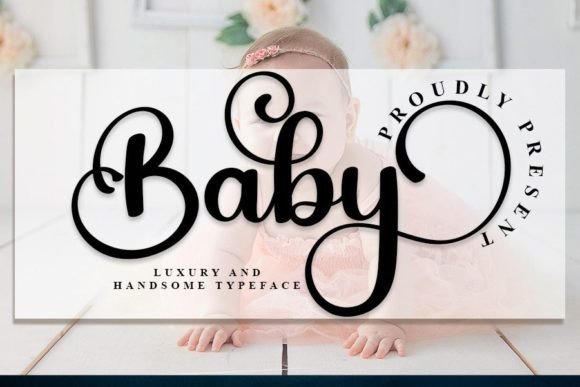
Meet Your New BFF: Baby Font
Have you ever been working on a design project and suddenly, you need that perfect touch of elegance and sophistication? You know, that moment when your entire concept comes together and you just can’t wait to share it with the world? For designers, that’s what makes the creative process so thrilling. And for us, that moment often involves the perfect font.
Enter Baby Font, a stunning handwritten font that’s as classy as it is modern. Whether you’re crafting a logo, designing wedding invitations, or simply want to add some personality to your social media posts, Baby Font is the perfect companion. With its PUA encoding, you can access all the amazing glyphs and ligatures with ease, making it a valuable addition to any designer’s toolkit.
So, what sets Baby Font apart? Its versatility, for one. It’s the perfect choice for a wide range of design projects, from stationery to branding, and everything in between. And with its modern yet refined feel, it’s sure to make your designs stand out in a crowd.
Baby Font Key Features
- Font Family: A custom-designed font specifically created for baby-related content, including baby names, nursery rhymes, and children’s books.
- Font Size: Designed to be highly legible at small font sizes, making it ideal for digital displays, mobile apps, and print materials.
- Resolution: Optimized for high-resolution displays, including 4K and Retina displays, ensuring crisp and clear text rendering.
- Unique Characteristics: The font features a playful, cursive style with rounded edges and soft curves, evoking a sense of warmth and nurturing.
- Character Set: Includes a wide range of characters, including uppercase and lowercase letters, numbers, punctuation marks, and special characters, making it suitable for various applications.
Designer Review: Baby Font
As a designer, I was excited to explore Baby Font, a font designed specifically for children’s content. Overall, I think it’s a cute and playful addition to any design project, but it also has some limitations that might make it less appealing to some users.
- Unique and quirky design: Baby Font has a distinctive style that’s perfect for children’s content, such as nursery rhymes, kids’ books, and educational materials.
- Easy to read: Despite its playful design, Baby Font is still easy to read, making it a great choice for text-heavy projects.
- Works well for digital and print: Baby Font looks great in both digital and print formats, making it a versatile choice for designers.
- Limited character set: Baby Font only includes a limited set of characters, which might make it less suitable for longer texts or more complex projects.
- Lack of bold and italic styles: While Baby Font has a bold version, it’s not available in all languages, and the italic style is not available at all.
- Not suitable for professional or formal content: Baby Font is too playful and whimsical for professional or formal content, making it less suitable for business or corporate projects.
Overall, Baby Font is a fun and playful font that’s perfect for children’s content. While it has some limitations, it’s still a great choice for designers who want to add a touch of whimsy to their projects.
Getting the Most Out of Baby Font
For best results, pair Baby Font with a clean and simple design aesthetic. Use it for titles, headings, or short text passages to create a playful and whimsical effect.
Baby Font is ideal for:
– Children’s products and services
– Baby-related marketing materials
– Whimsical or playful branding
Alternatives to Baby Font
Great Vibes is a beautiful, elegant script font that can be used for a variety of purposes. It’s perfect for headings, titles, and other text that needs a touch of sophistication. Great Vibes has a similar feel to Baby Font, but it’s more refined and polished.
Comparison to Baby Font: Great Vibes is more elegant and refined, making it suitable for formal and professional projects. Baby Font is more playful and casual.